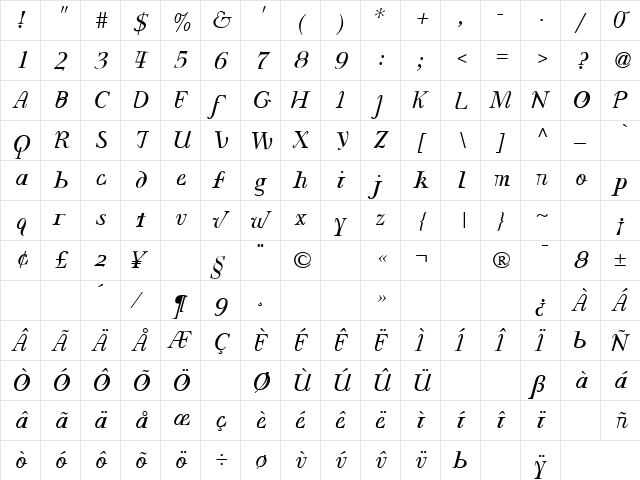
CaseSeraSeraItalic Regular
Design Context for CaseSeraSeraItalic Typeface
CaseSeraSeraItalic is a composed and adaptable typeface that performs quietly and consistently across a wide range of design contexts. Its italic angle brings a sense of urgency and motion to the letterforms.
Pro Tip: Use CaseSeraSeraItalic for emphasis, pull quotes, and subheadings where its slanted energy can add rhythm to the layout.